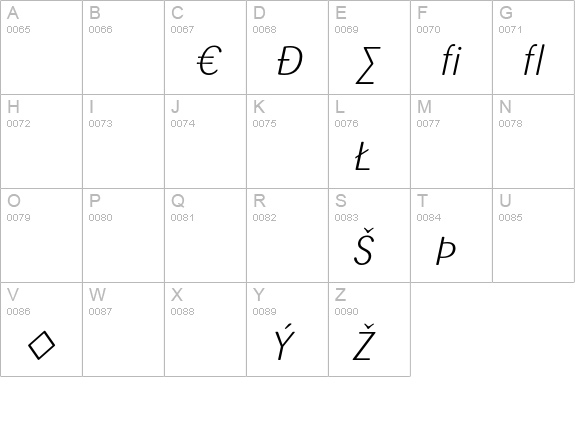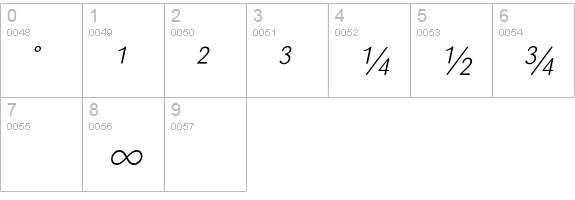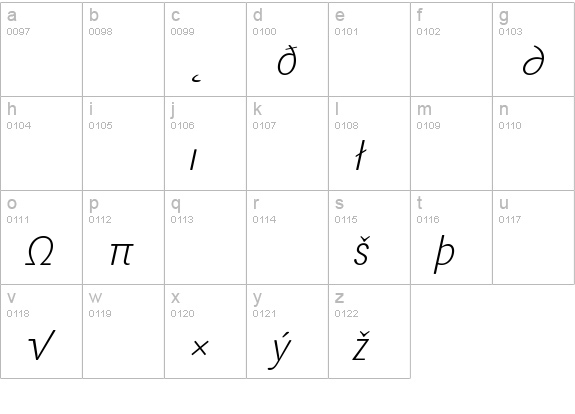
Sari-LightItalicExp Font Details
Sari-LightItalicExp is a stunning font that exudes elegance and sophistication. Its graceful, slanted characters create a delicate and refined aesthetic, making it perfect for projects that require a touch of class. This font's unique design effortlessly blends traditional elements with a modern twist, resulting in a beautiful and timeless typeface. The flowing curves and gentle strokes of Sari-LightItalicExp add a touch of femininity and grace to any design. Whether used for invitations, branding, or editorial purposes, this font is sure to captivate and leave a lasting impression. One of the best features of Sari-LightItalicExp is that it is free to download. You can easily get your hands on this exquisite typeface at FontsMarket.com, where it is readily available for all your creative endeavors. With just a few clicks, you can enhance your projects with the beauty and versatility of Sari-LightItalicExp. Don't miss out on this incredible opportunity to elevate your designs with Sari-LightItalicExp. Download it for free today and discover the endless possibilities that this font has to offer.